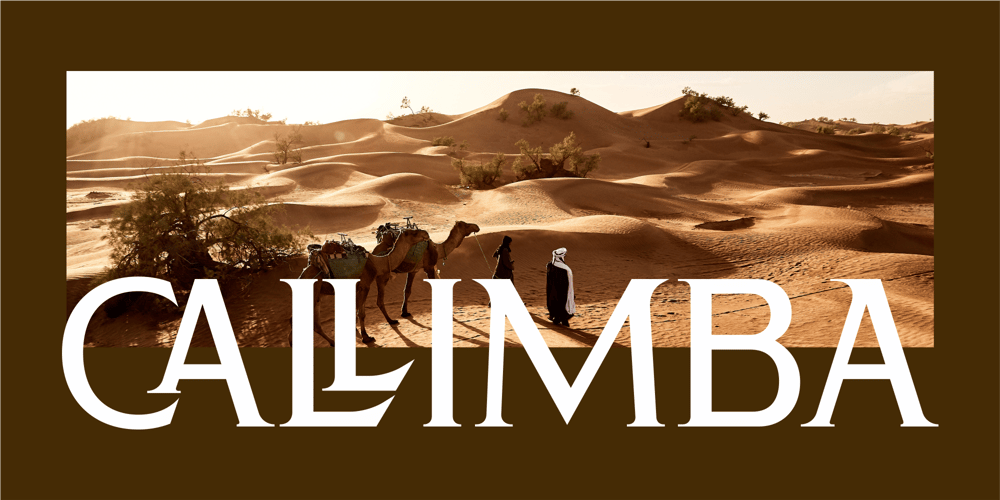
Callimba Font Family was designed by Heru Utama Putra and published by Letterena Studios. Callimba contains 2 styles and family package options. Are you trying to make an elegant, modern, and stylish statement with your invitations, social media, website, or printed materials? Ready to enchant your audience and enhance your branding? Introducing Callimba – A Serif FontCallimba is a gorgeous serif font that will whisk you away to a place of style! We are hoping that through this elegance and passion edged font, you can maximize your designs, reign in sales or make lasting impressions. The ideal font for social media banners; posts, and ads, printed quotes, t-shirt designs, packaging, or even as a modern text overlay to any background image. Callimba includes Multilingual Options to make your branding globally acceptable. Features: Ligatures Alternates Multilingual Support PUA Encoded Numerals and Punctuation